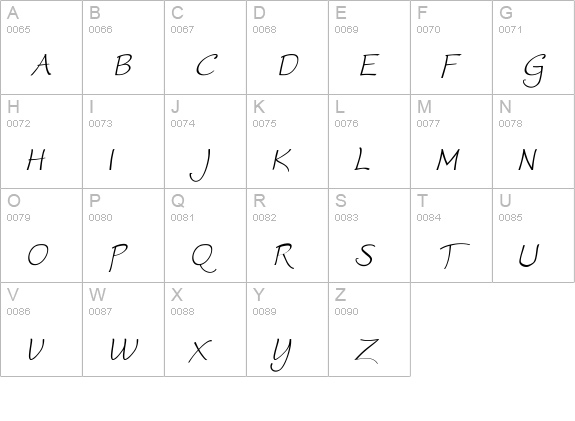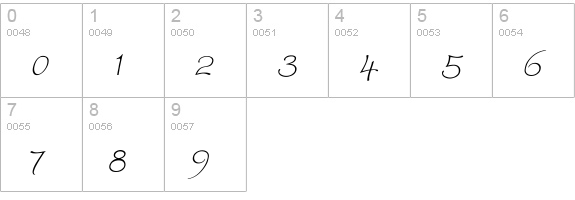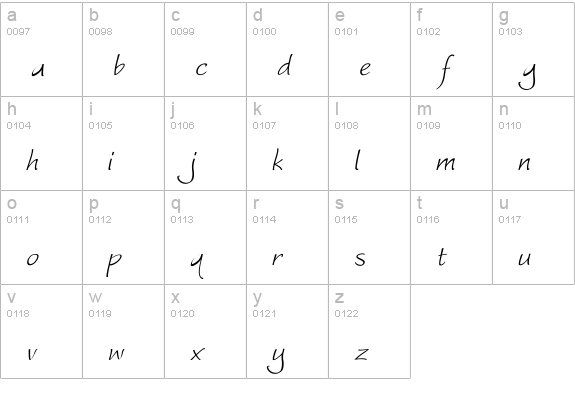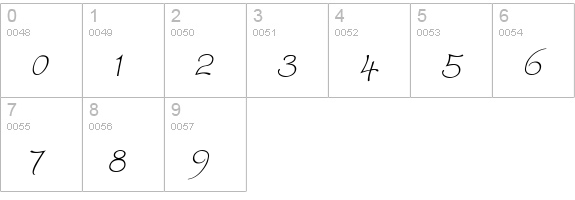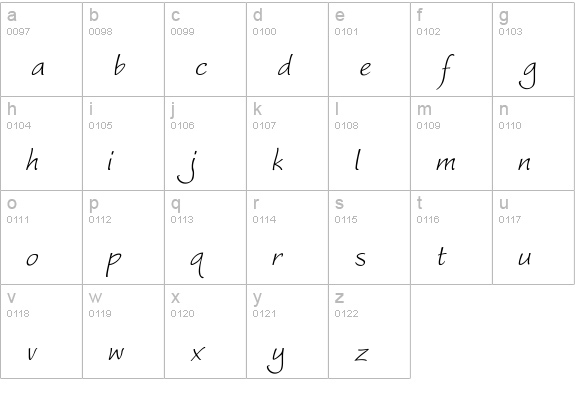
Worstveld Sling Oblique is a distinctive, italic variant in the Worstveld typeface family \xE2\x80\x94 well suited to design and typography projects.
Worstveld Sling Oblique is a stylish and modern font that brings a unique touch to any design project. With its slanted and playful appearance, this font is perfect for adding a touch of creativity and personality to your work. The sleek curves and sharp angles of Worstveld Sling Oblique make it a versatile choice for a wide range of applications, from branding to packaging to social media graphics. What sets Worstveld Sling Oblique apart is its free-flowing and dynamic nature, allowing it to stand out and capture attention effortlessly. Whether you're looking to make a bold statement or simply add a subtle flair to your design, this font has you covered. Best of all, Worstveld Sling Oblique is freely available to download at FontsMarket.com, making it accessible to all designers and creatives looking to elevate their projects with a touch of modern sophistication. Don't miss out on the opportunity to enhance your designs with this eye-catching font today!